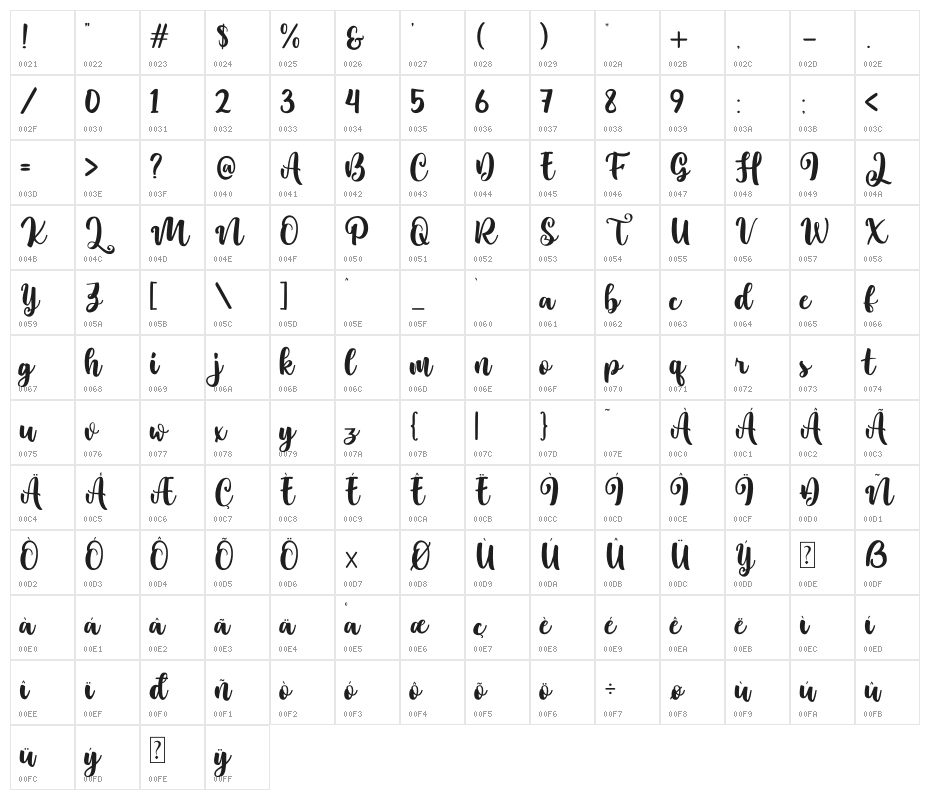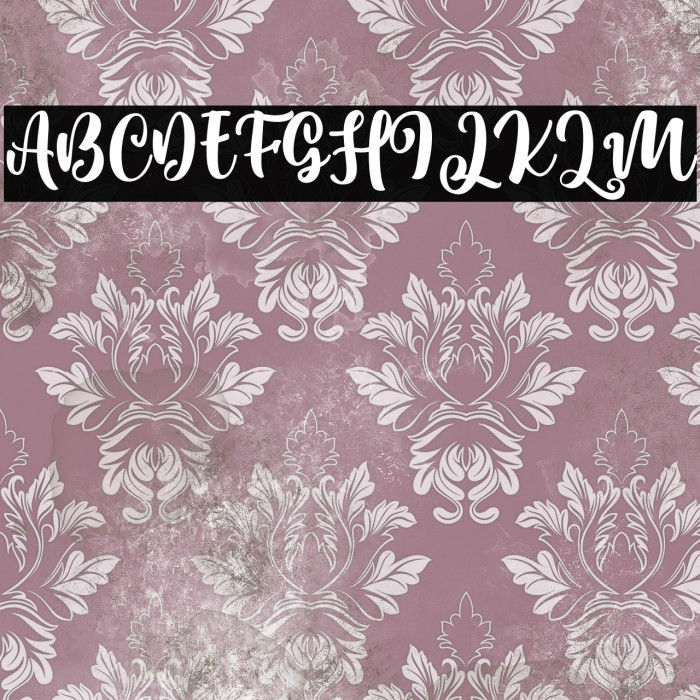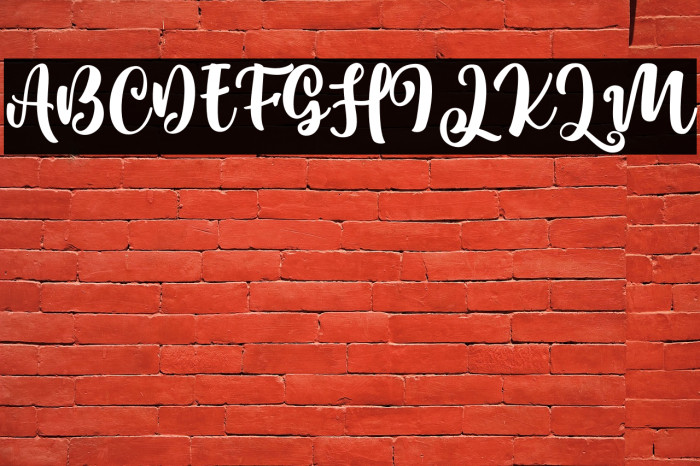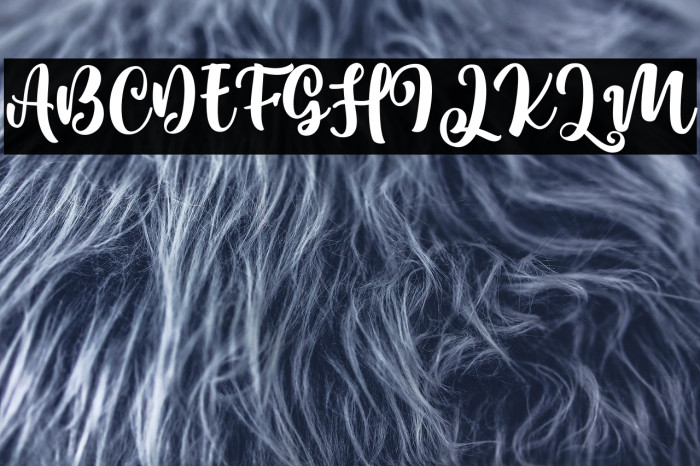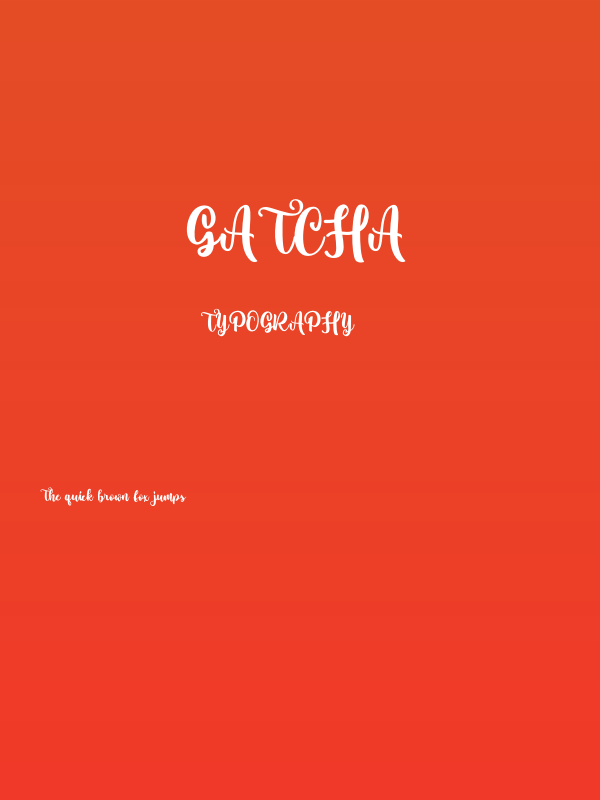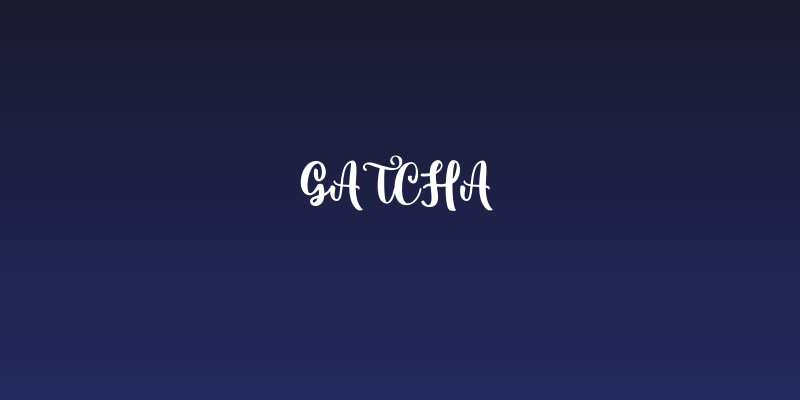
Gatcha Font
This font features a bold and playful script style, characterized by its flowing, cursive letterforms that exude a sense of elegance and creativity. The uppercase letters are ornate with swirls and loops, while the lowercase letters maintain a consistent flow, enhancing readability. The numbers and special characters are designed to match the overall aesthetic, making them suitable for decorative purposes. The font's thick strokes and smooth curves give it a lively and dynamic appearance, perfect for capturing attention in various design contexts.
| Use Case | Logos, Headlines, Invitations |
| Proposed Projects | Ideal for greeting cards, invitations, branding, and social media graphics. |